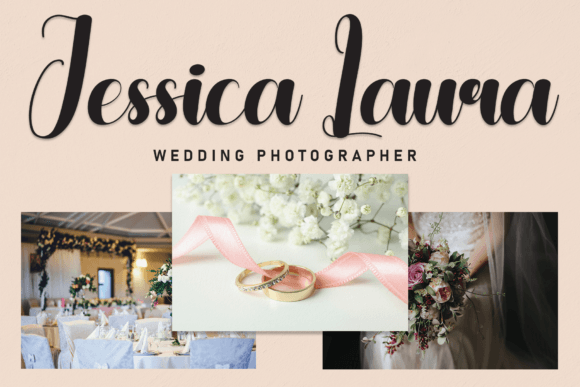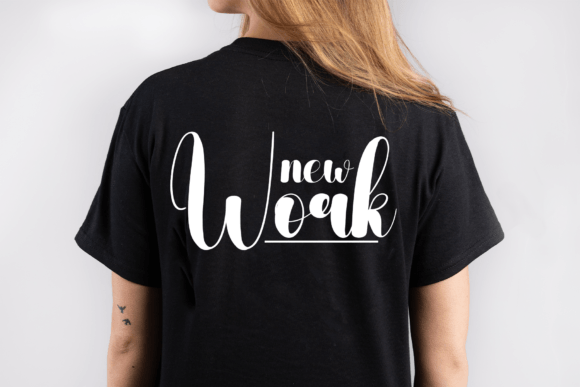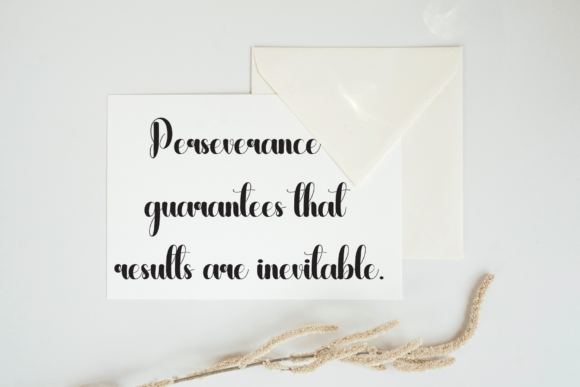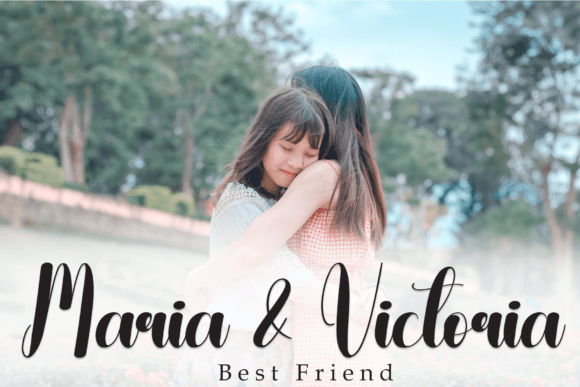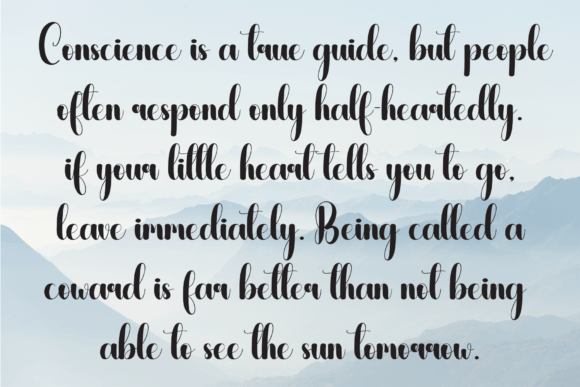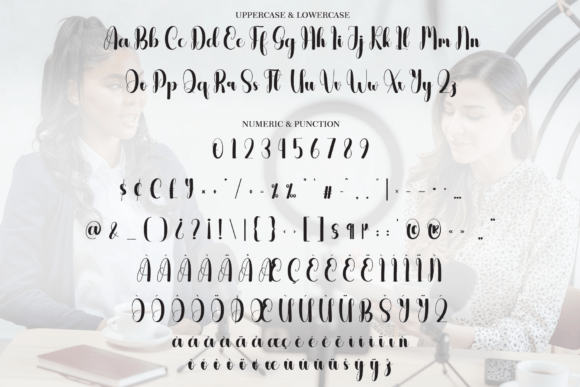
Introducing Guest Font: The Sweet and Friendly Handwritten Font for Your Design Needs
Are you looking for a font that can add a personal touch to your designs? Do you want to create beautiful wedding invitations, cards, or other materials that exude warmth and friendliness? Look no further than Guest Font, a lovely handwritten font that’s perfect for a variety of design projects.
What is Guest Font?
Guest Font is a sweet and friendly handwritten font that’s designed to bring a touch of elegance and whimsy to your designs. With its fresh and casual feel, this font is ideal for creating beautiful wedding invitations, cards, and other materials that require a personal touch.
Key Features of Guest Font
- Handwritten style: Guest Font features a beautiful handwritten style that’s perfect for creating personal and heartfelt designs.
- Fresh and casual feel: This font has a fresh and casual feel that’s ideal for creating designs that are modern and trendy.
- Perfect for wedding designs: Guest Font is specifically designed for creating beautiful wedding invitations, cards, and other materials that require a touch of elegance and romance.
- Easily readable: This font is easily readable, making it perfect for body text and other design elements.
How to Use Guest Font in Your Designs
Guest Font is a versatile font that can be used in a variety of design projects. Here are some ideas to get you started:
- Wedding invitations: Use Guest Font to create beautiful wedding invitations that set the tone for your special day.
- Cards and stationery: This font is perfect for creating lovely cards and stationery for special occasions.
- Social media graphics: Use Guest Font to create engaging social media graphics that showcase your personality and style.
- Branding and packaging: This font can also be used for branding and packaging design, adding a personal touch to your products.
Tips for Pairing Guest Font with Other Fonts
Pairing Guest Font with other fonts can create a unique and visually appealing design. Here are some tips for pairing this font with other fonts:
- Pair with a sans-serif font: Pairing Guest Font with a sans-serif font like Arial or Helvetica can create a nice contrast and add visual interest to your design.
- Pair with a serif font: Pairing Guest Font with a serif font like Times New Roman or Georgia can create a elegant and sophisticated look.
- Experiment with font sizes: Experimenting with different font sizes can create a visually appealing hierarchy of information in your design.
Guest Font is a beautiful handwritten font that’s perfect for designers and crafters who want to add a personal touch to their designs. With its fresh and casual feel, this font is ideal for creating beautiful wedding invitations, cards, and other materials that require a touch of elegance and romance. Whether you’re a designer or a crafter, Guest Font is a great addition to your font collection.